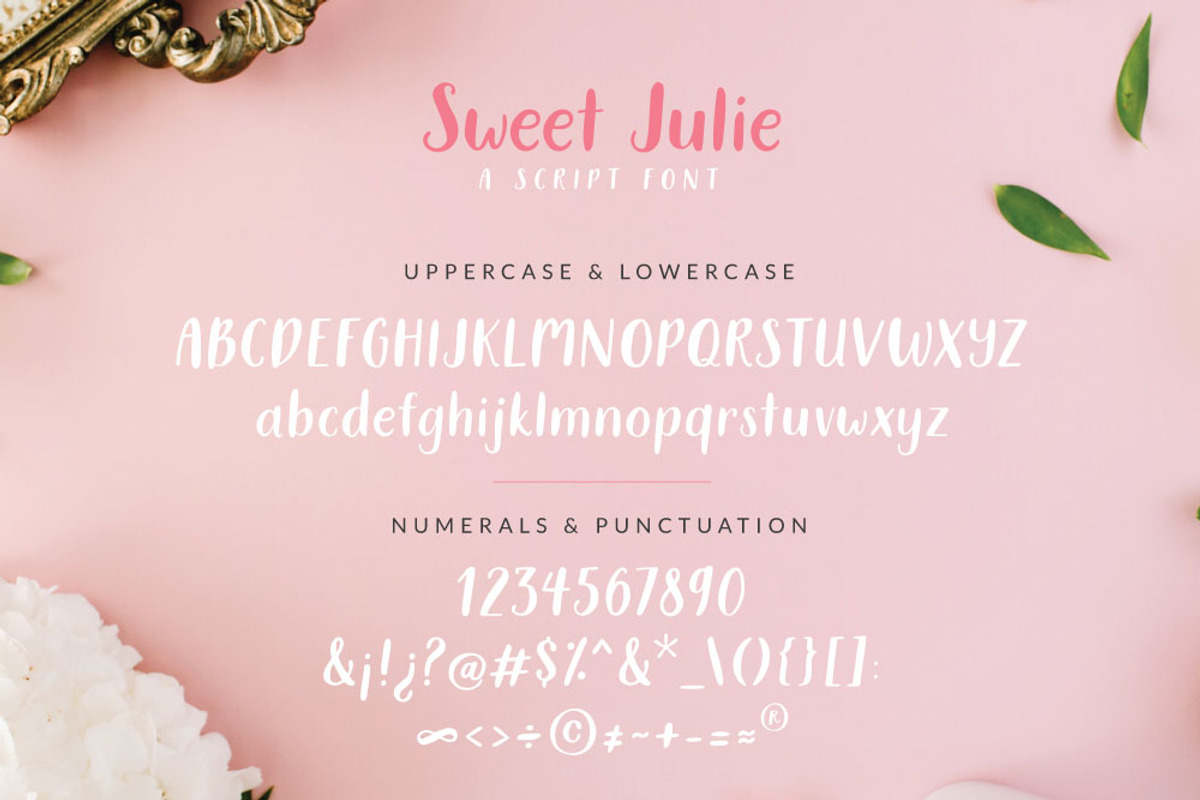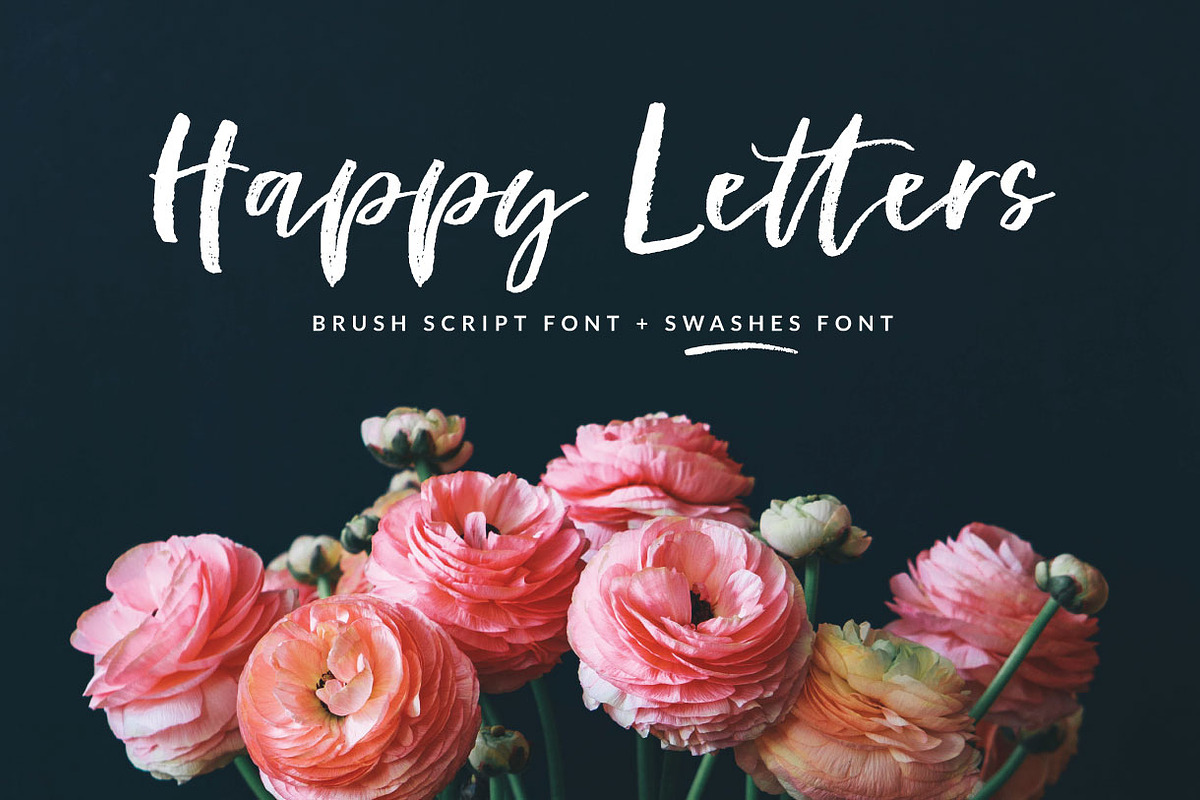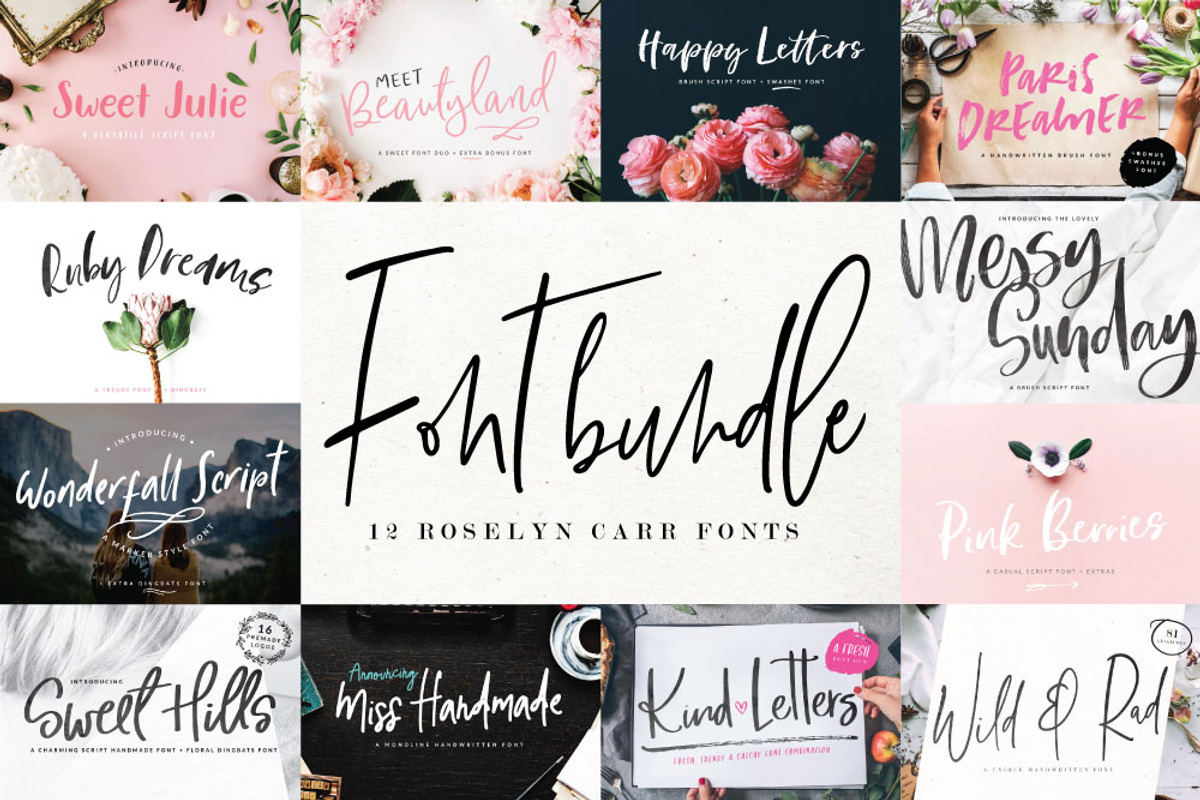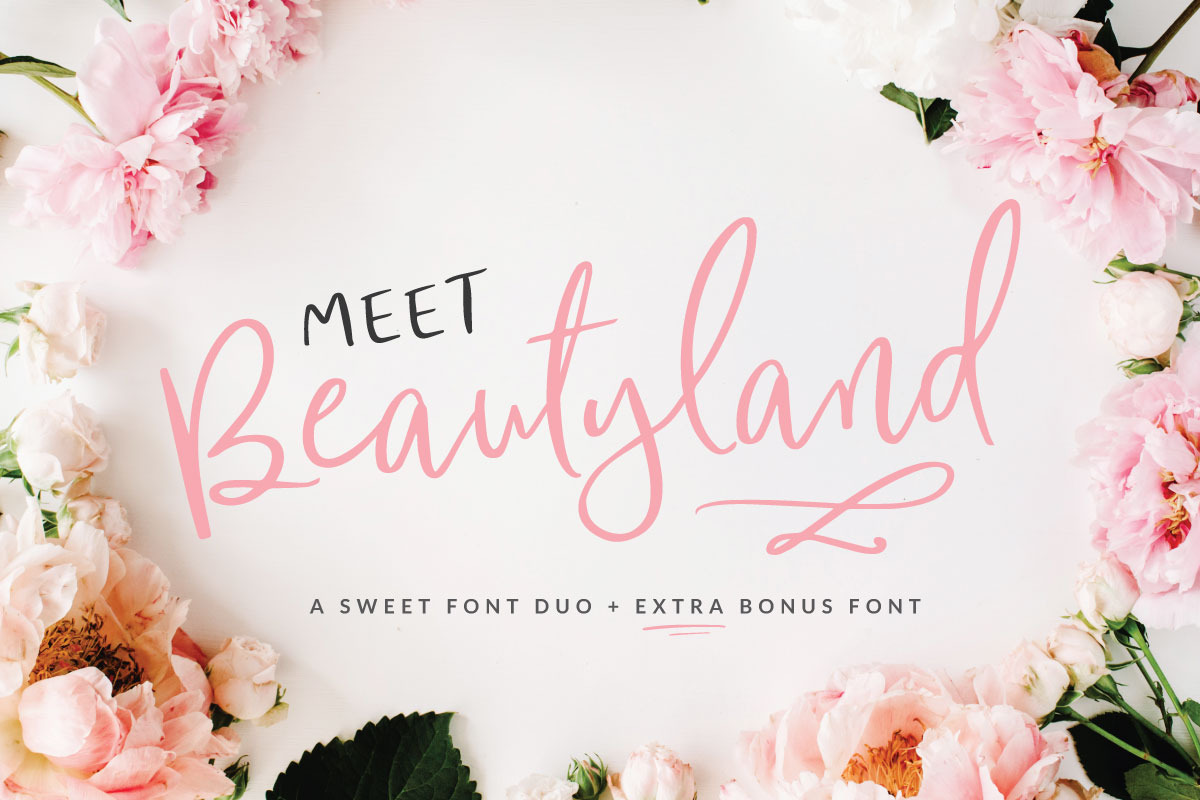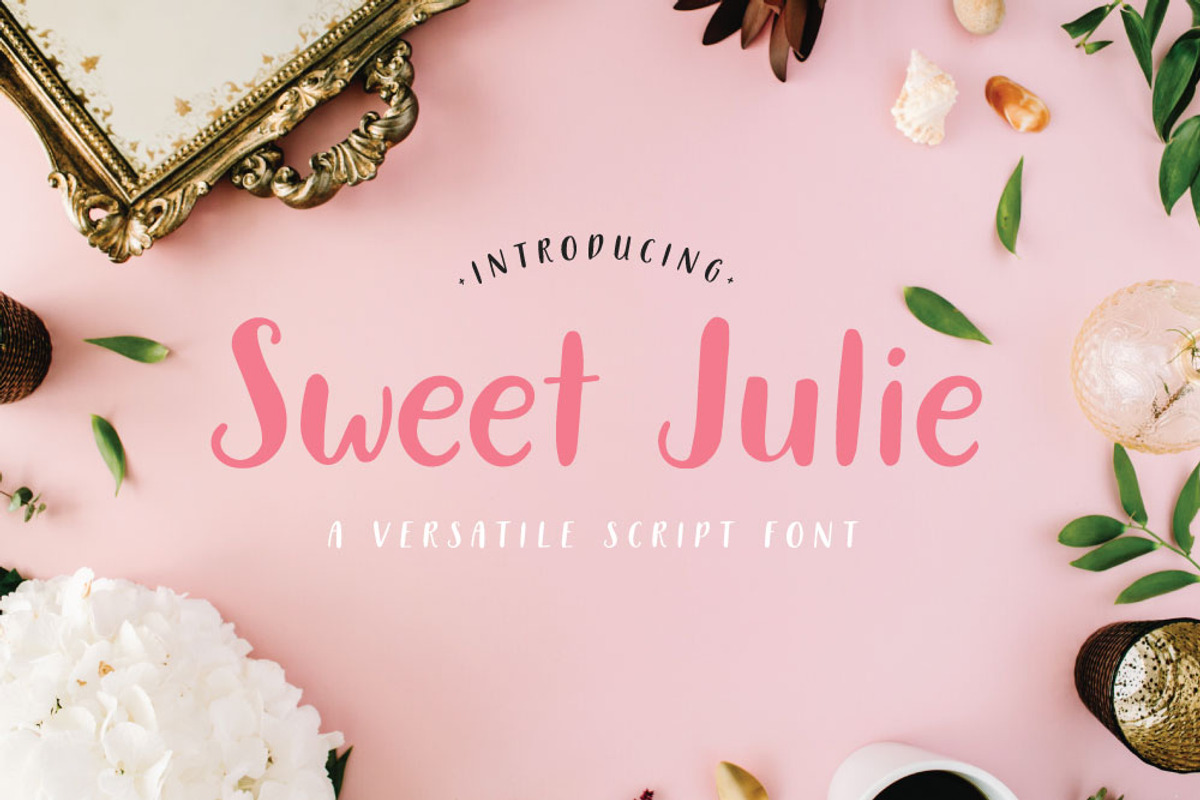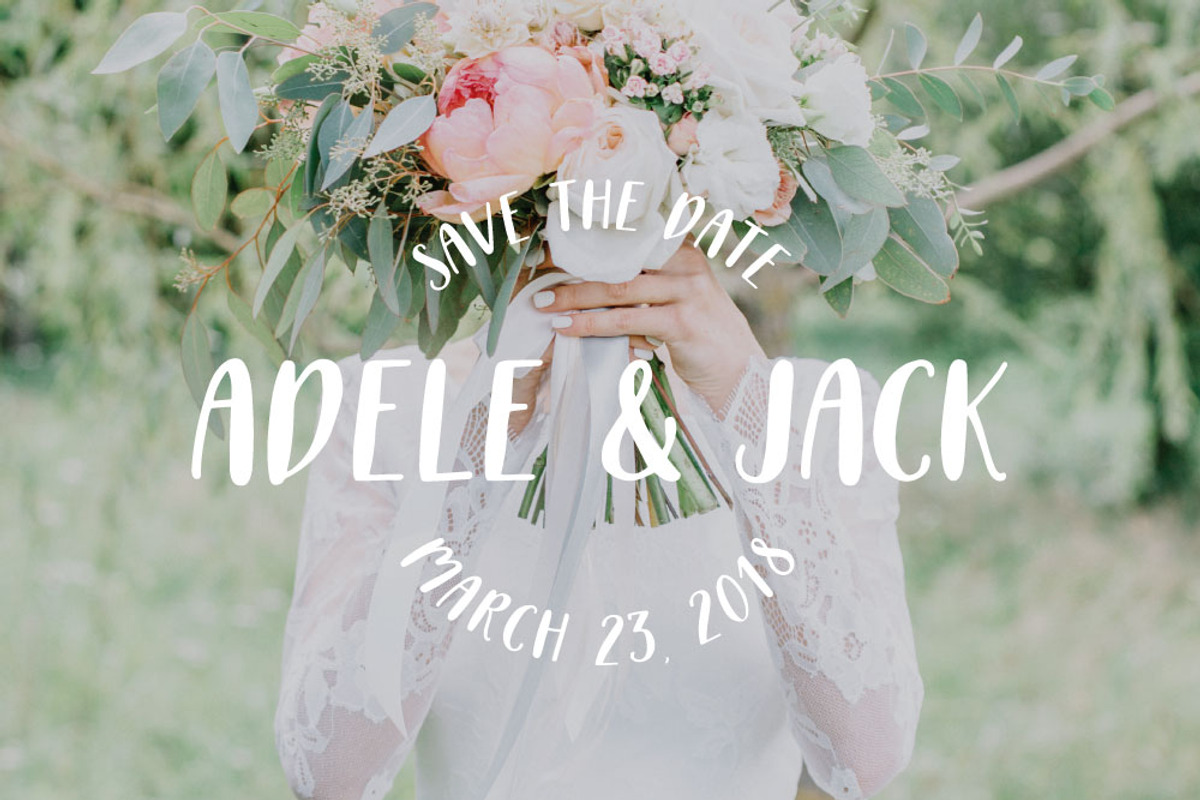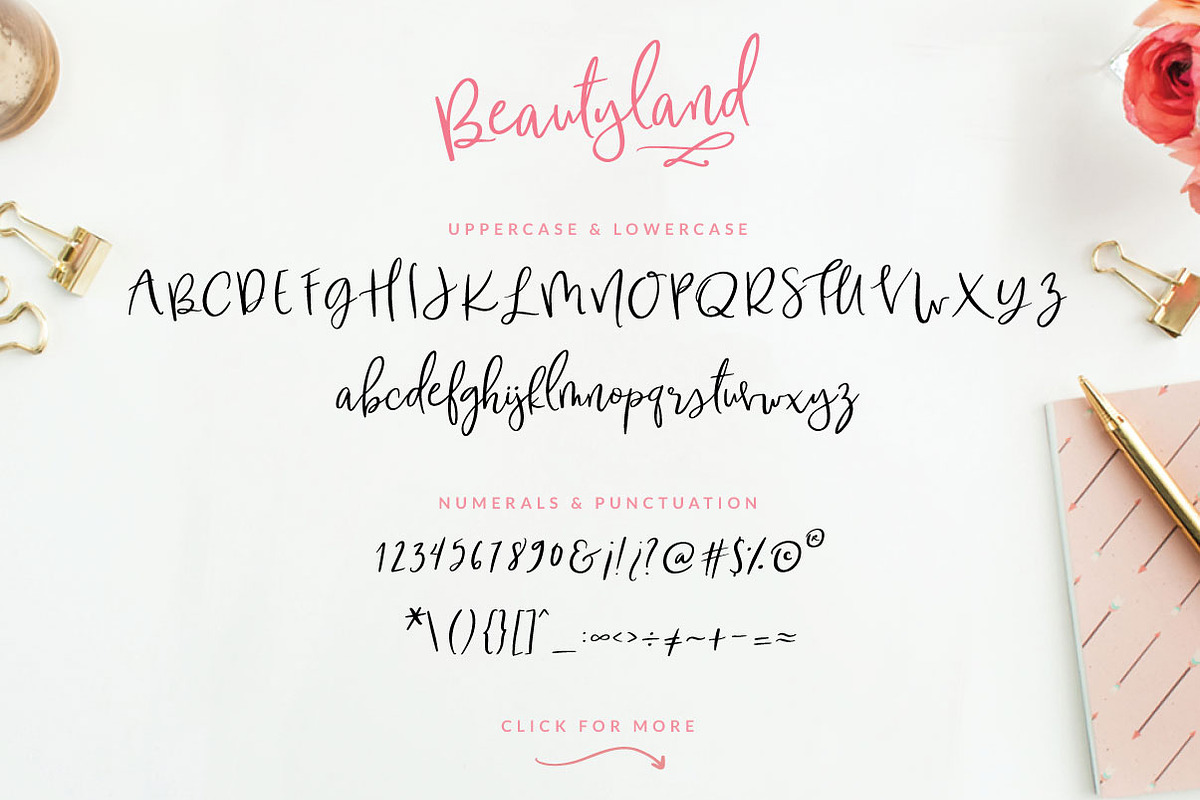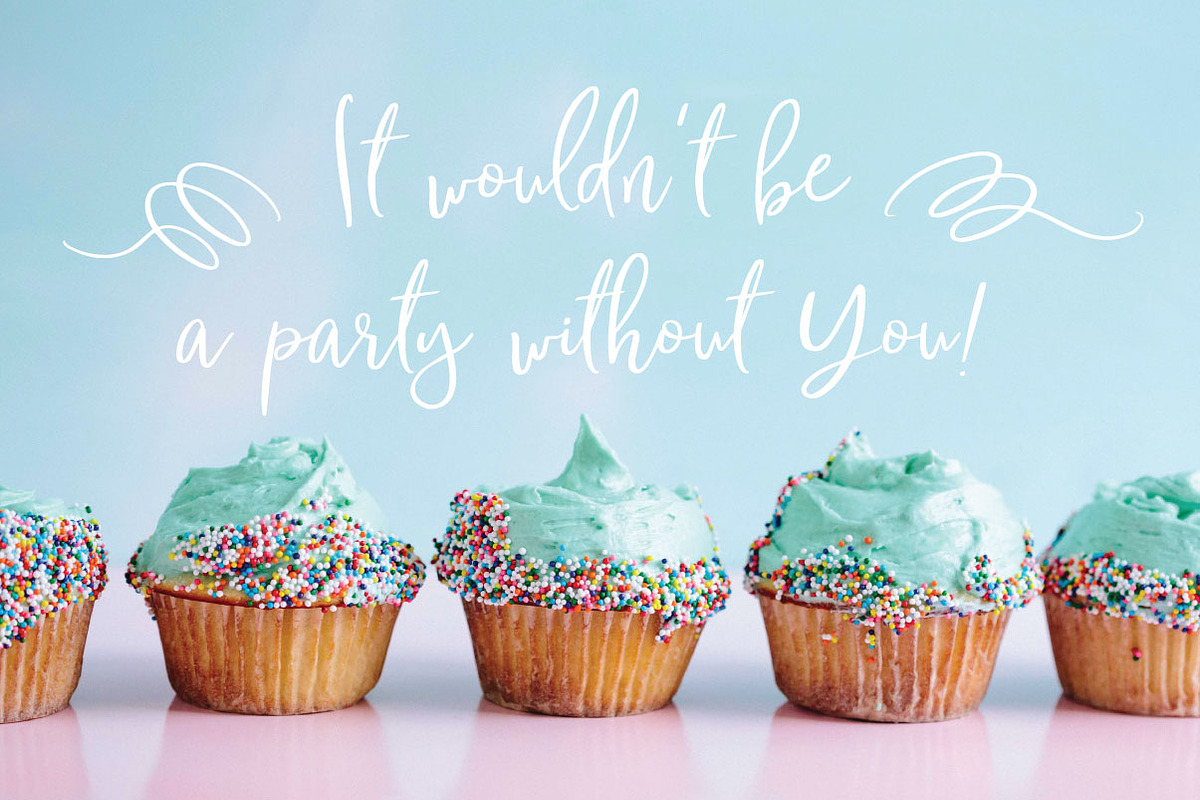
Fonts bundle - 12 fonts
12 Hand lettering and script font families together to mix and match on your personal and commercial projects.
Casual, playful and full of style these fonts are going to add a lot of personality to your creations, designs and projects. Featuring dingbats, letterings, logos, stylistic sets and lots of ligatures to add a natural and organic feeling to your texts, titles & paragraphs.
12 Font Families: including 21 font variations = 14 Script fonts + 7 dingbats fonts + 16 logos
Full upper and lowercase
Numerals and Punctuation